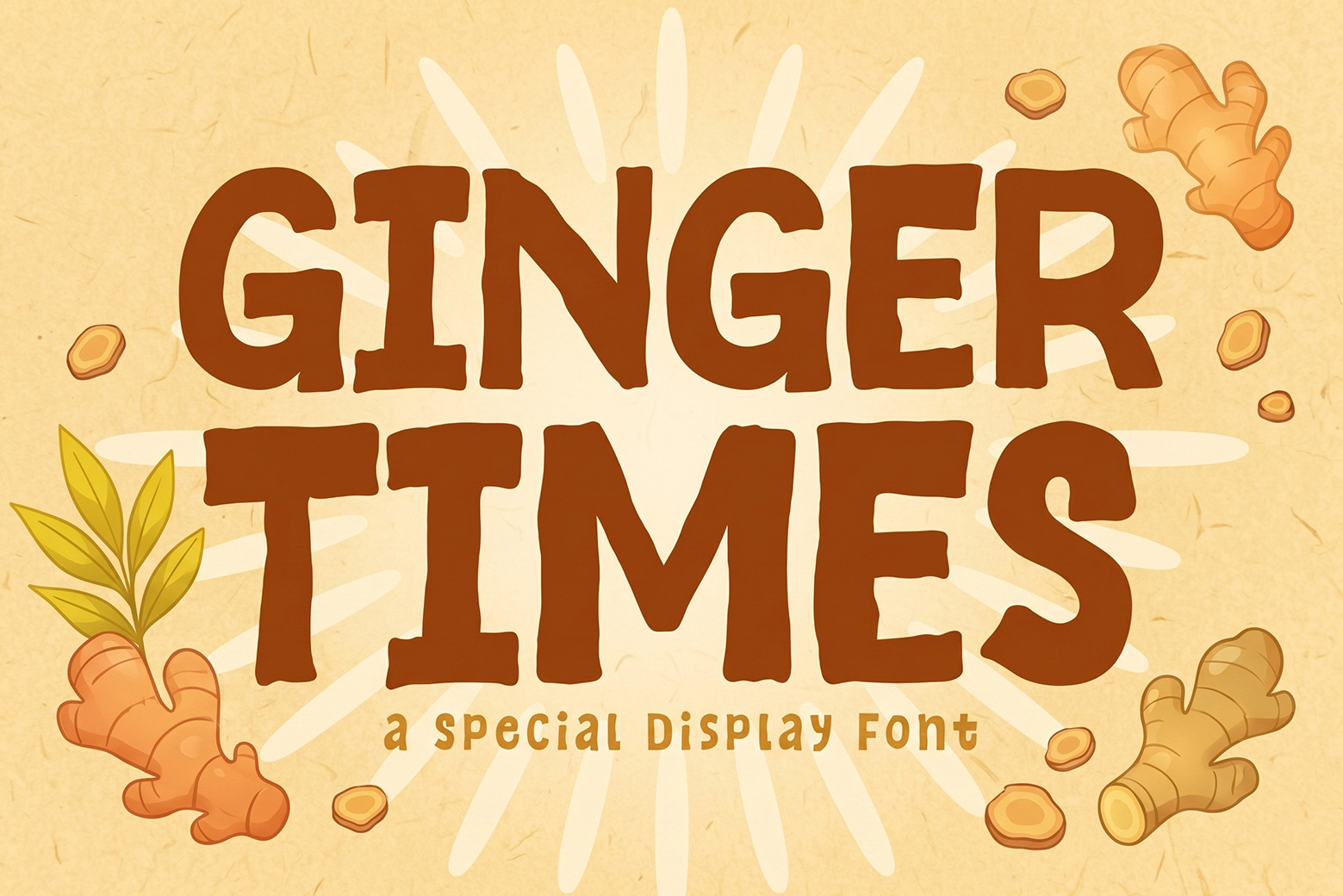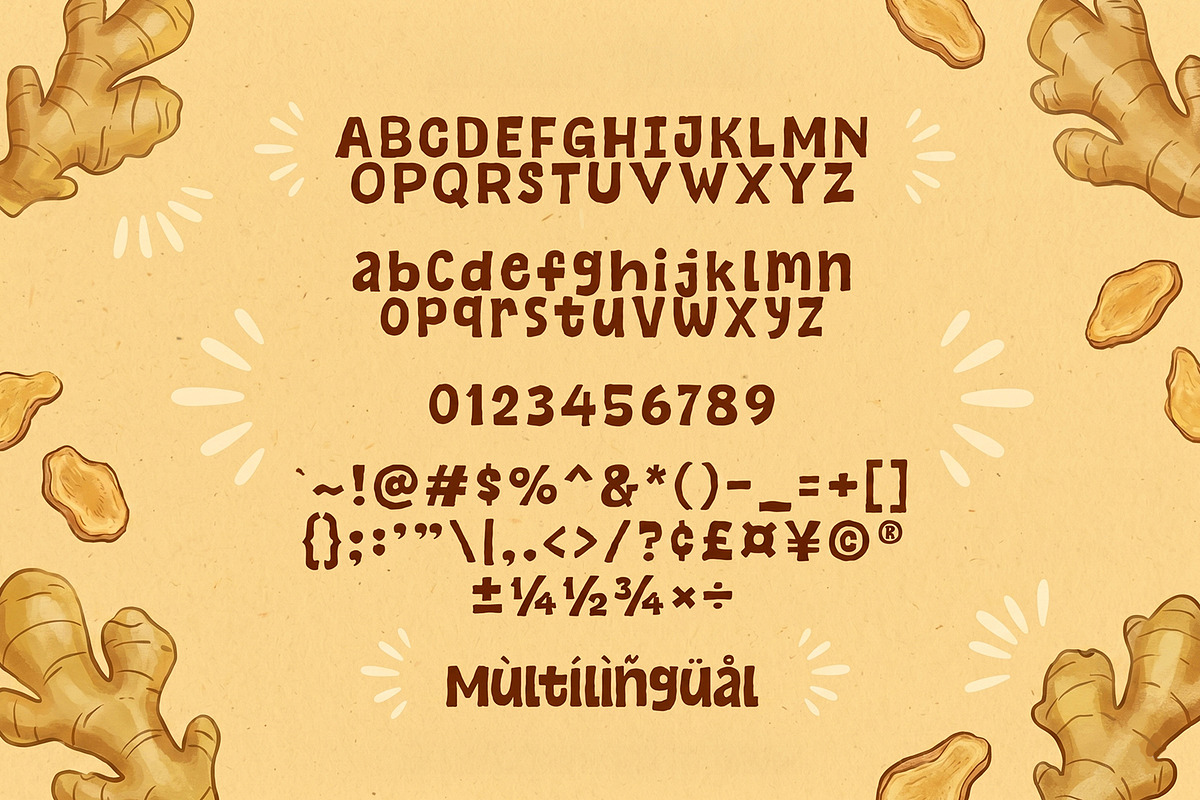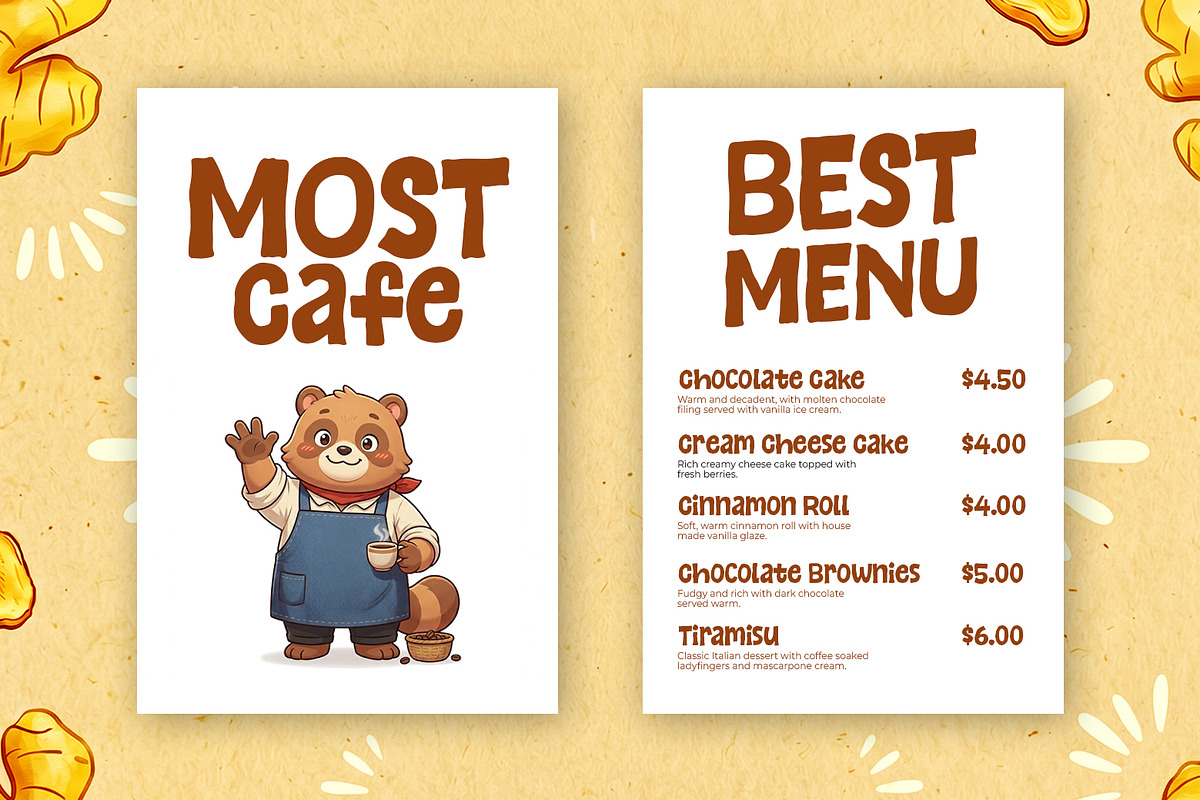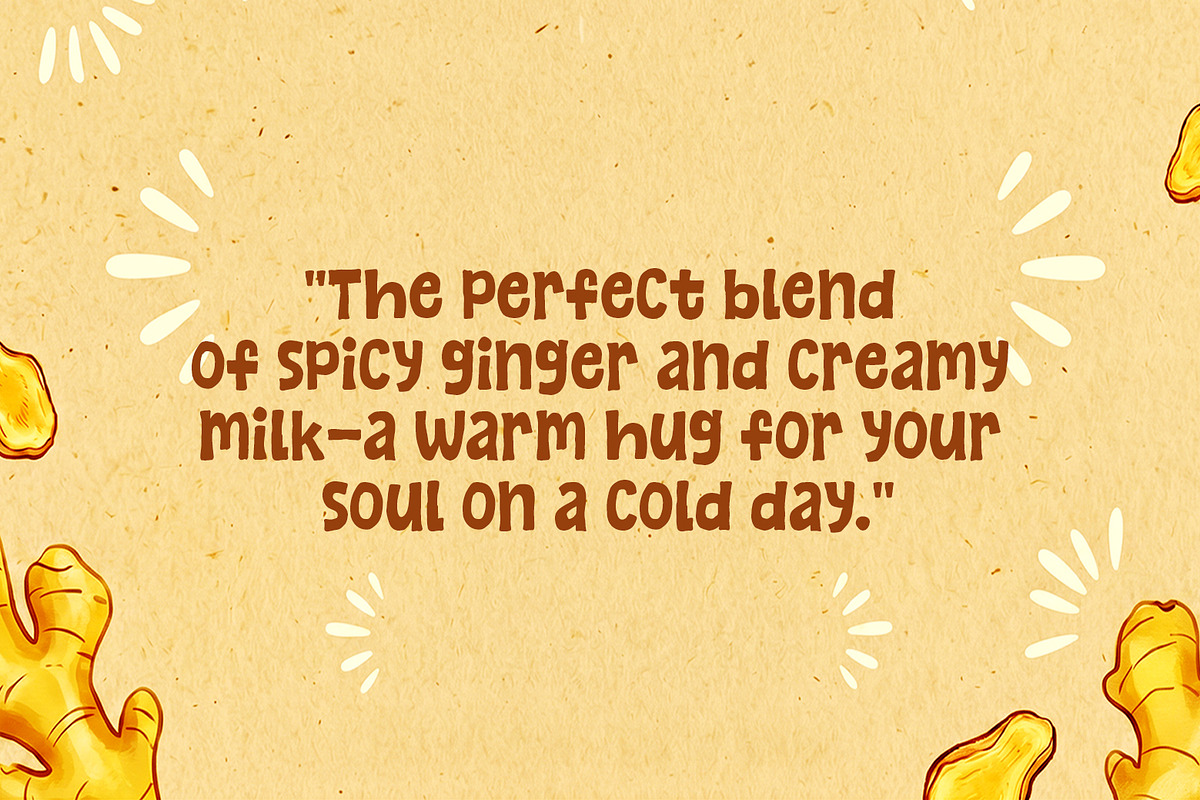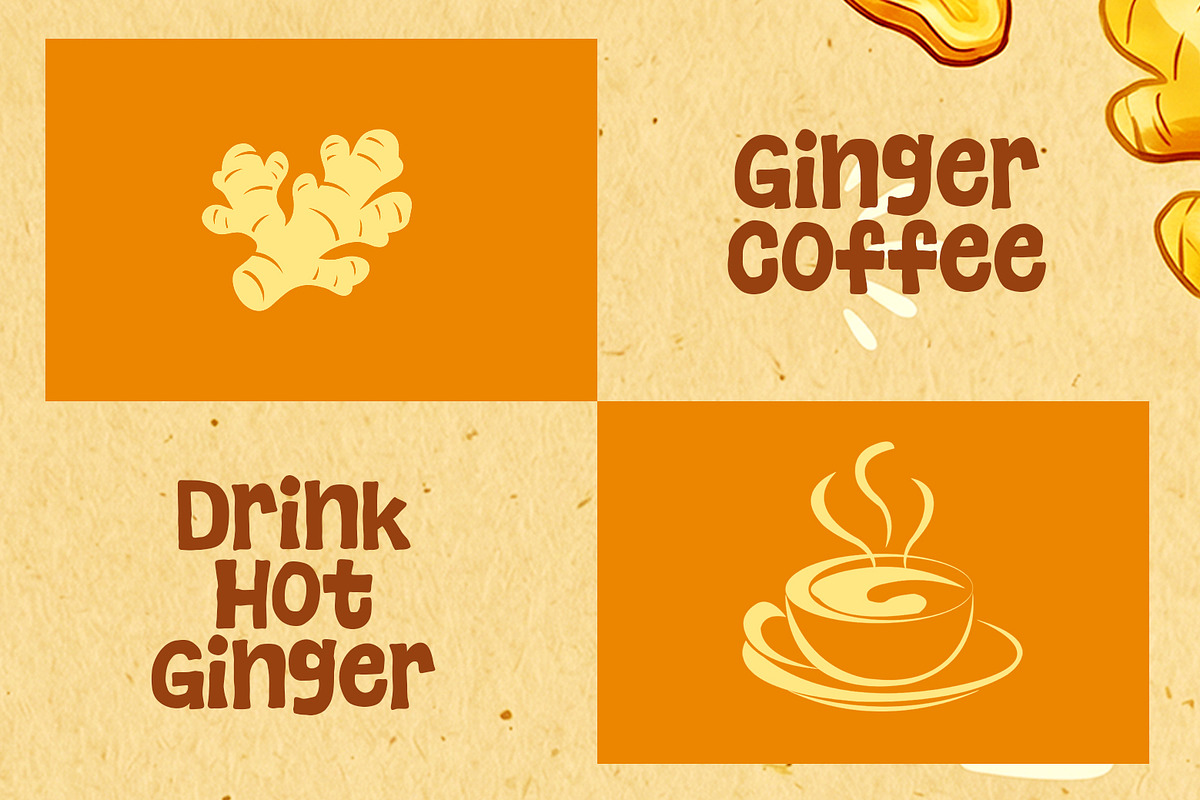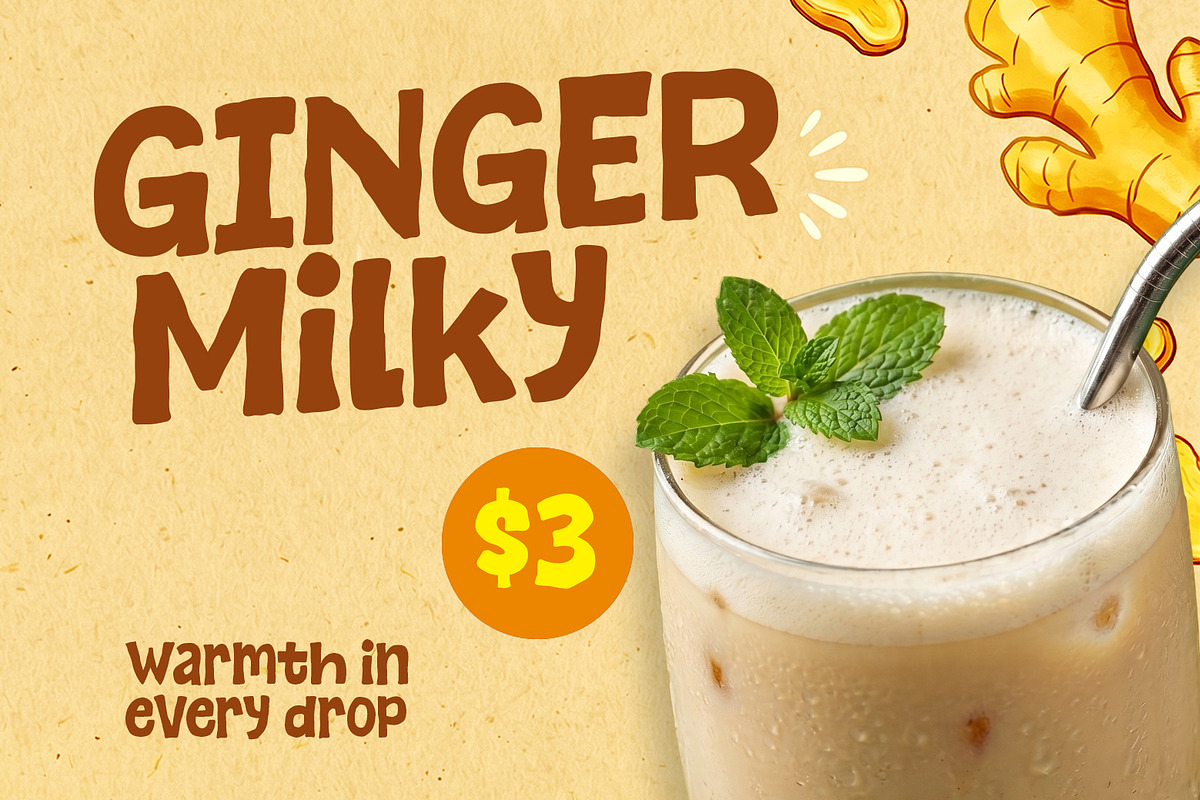
Ginger Times - Cozy & Display Font
Introducing, Ginger Times font a fun display typeface with cheerful theme for your fun project. Ginger Times font suitable for logo, branding, greeting card, poster and any design that you create.